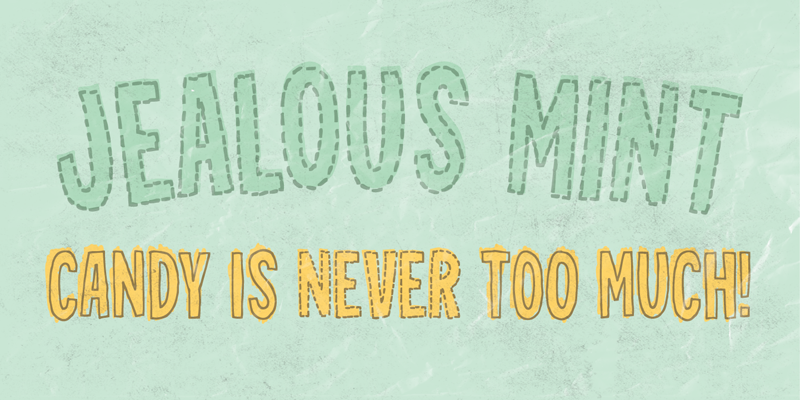
Jealous Mint is a 100% handmade font. It comes in 6 different versions: Outline, Paint, Stitch, Fill, Dot 1 and 2. All of these versions work very well together, and makes it possible to give your text a lot of different expressions. The font is ALL-CAPS, and comes with different letters in UPPER- and lowercase, along with ligatures to substitute double lettering! Download the FULL version here: https://www.myfonts.com/fonts/pizzadude/jealous-mint/ |